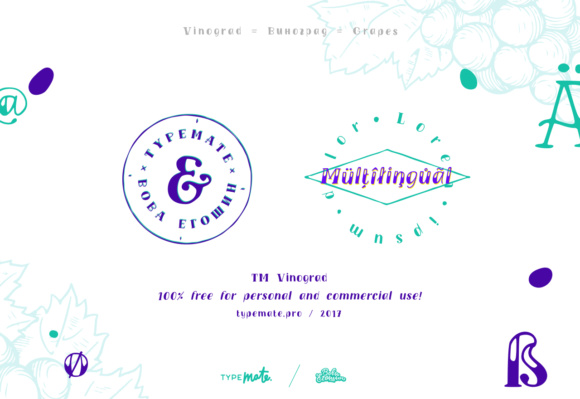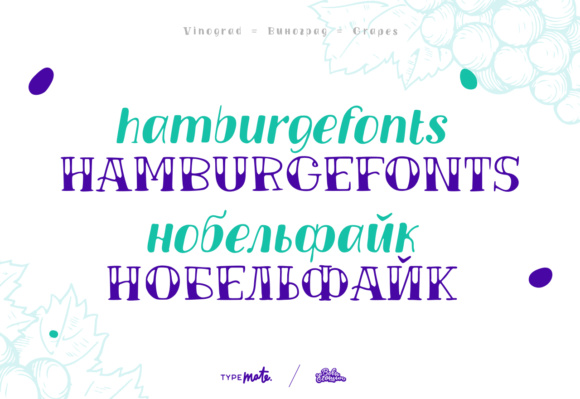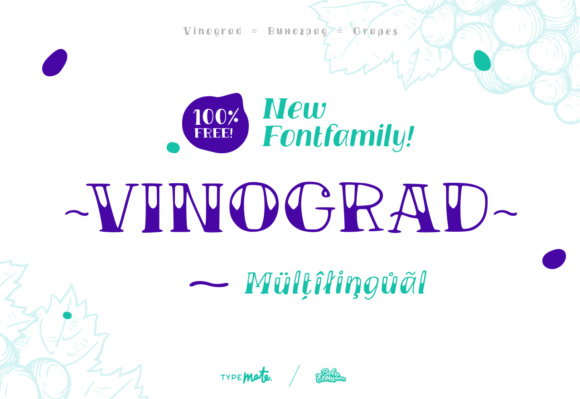
Vinograd
About Vinograd Font
Vinograd is a handwritten display font, it comes in 2 styles which makes it an excellent font for different designing needs. Vinograd has a lovely contrast and with it’s striking letters it is perfect for logo’s, headings, and every other design that needs to stand out!